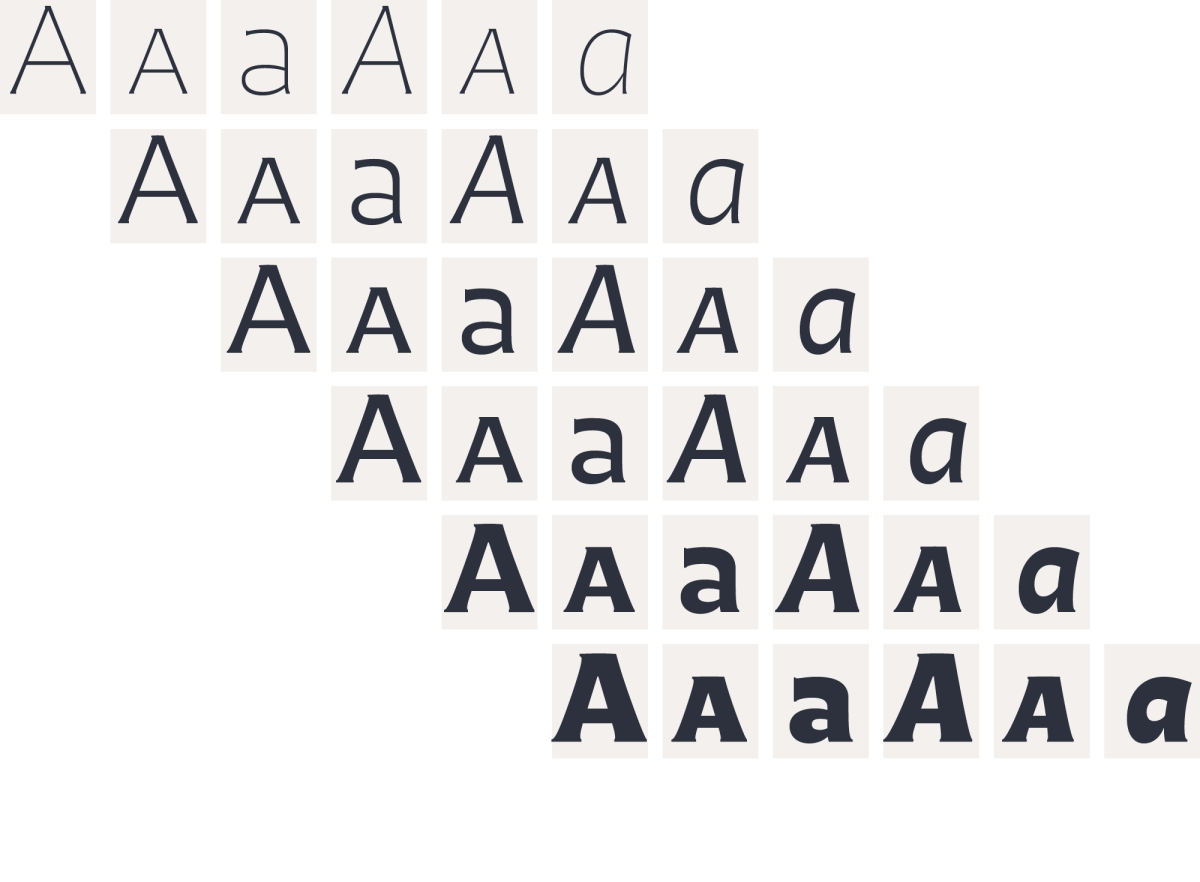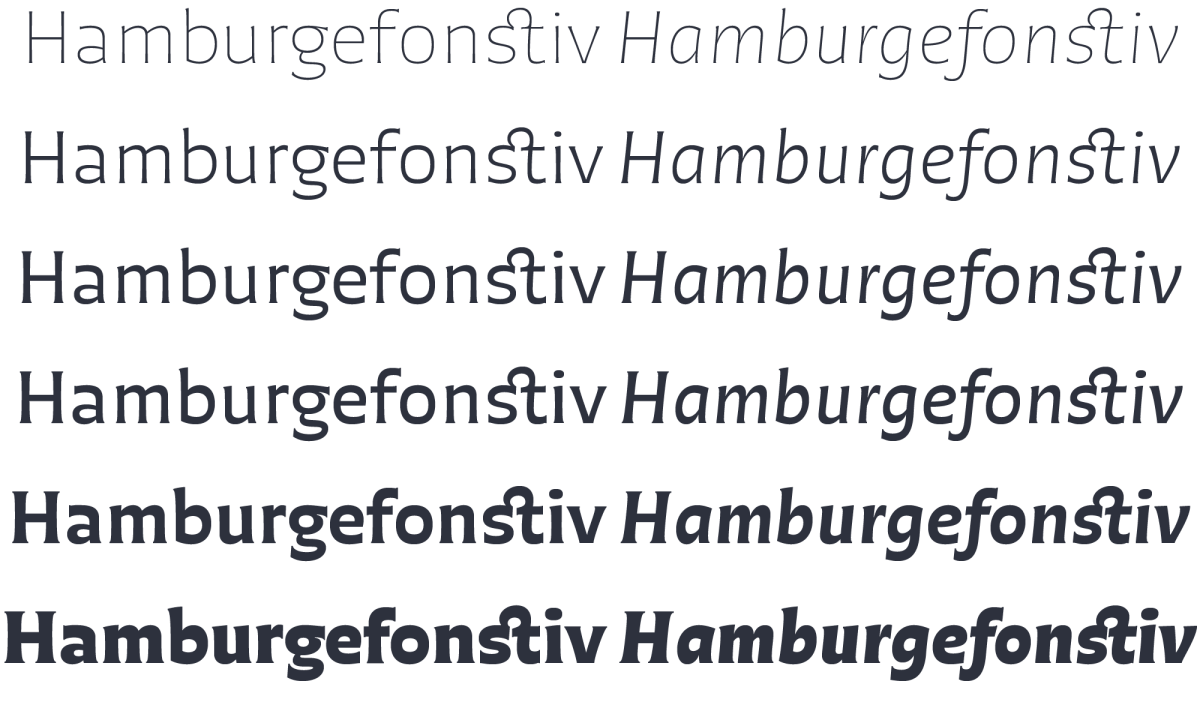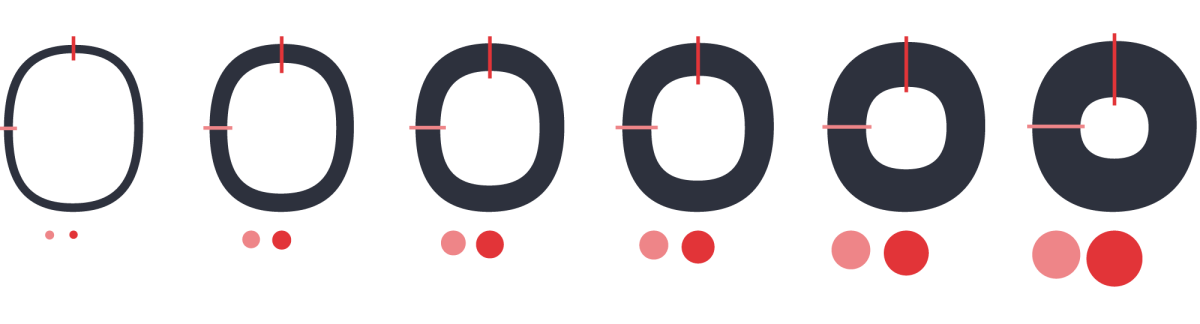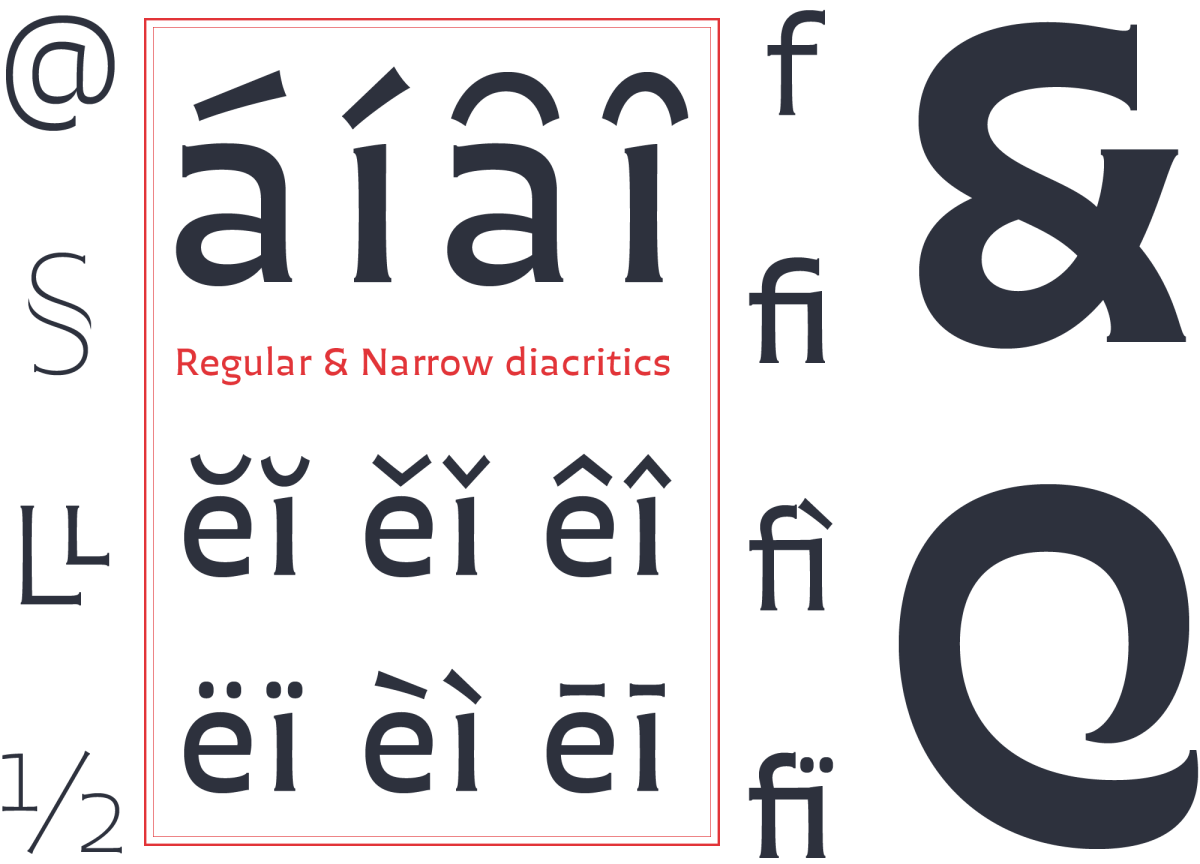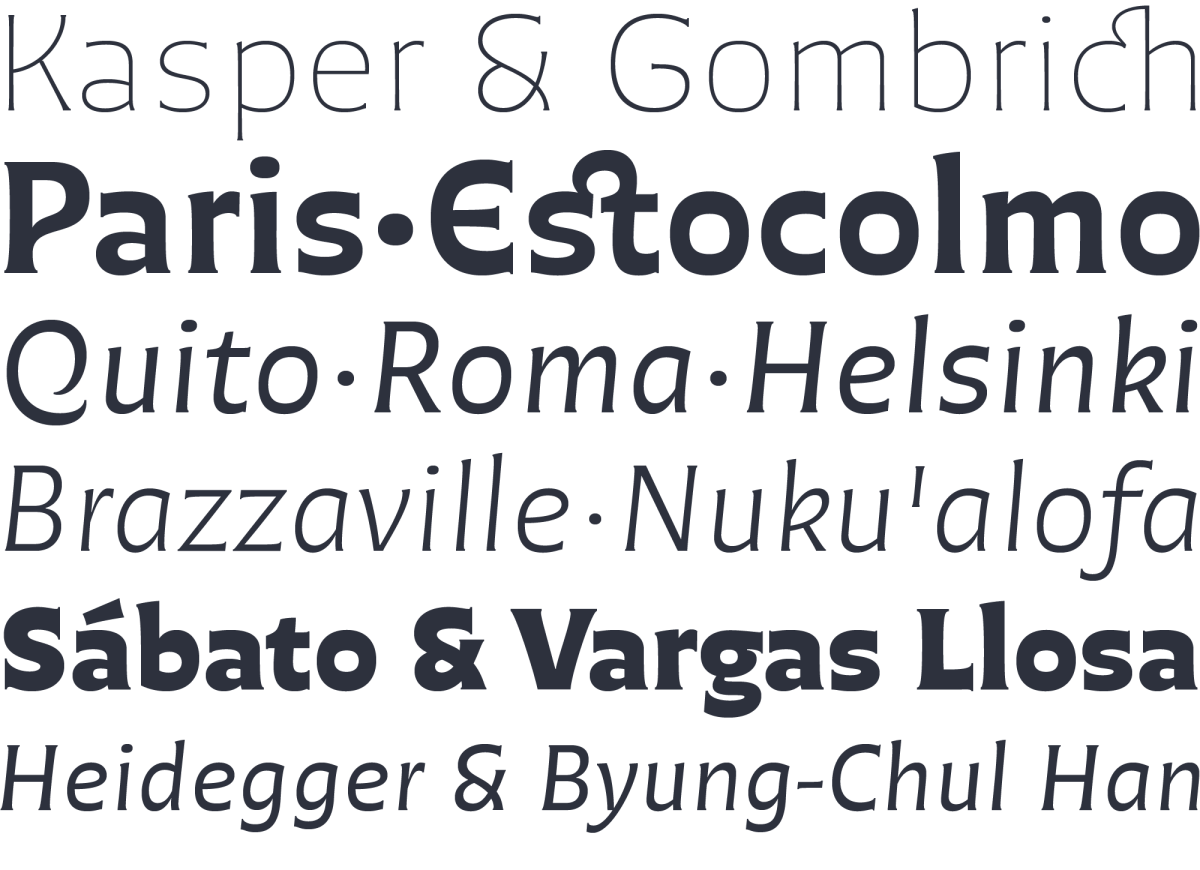
Chercán. Finely informal
Highly legible & charming?
Chercán is a spirited type created with a delicate sense of how readability doesn’t need to be dull. It wears a unique voice, the result of combining a sober sense of functionality with a charming soul. Its endurance and its open counters allow for a comfortable reading in small text.
Reverse contrast
Chercán has a slight inverted modulation of thick & thin strokes. This reverse contrast grows while weight increases. This is a key feature to friendliness and gives it a contemporary feel too. Other typefaces with reverse contrast are under preparation at PampaType.
Inspirations
Chercán occupies a unique place in the contemporary type design shelf, by exquisitely combining versatility, legibility, spiciness, and elegance. Its balanced rhythm is the result of a slow pairing of qualities found in old classics admired by Francisco Gálvez, such as Copperplate by Frederic Goudy, and Antique Olive by Roger Excoffon.
Refined & informal
Due to its legibility and the even grey it gains in long texts, Chercán is good for immersive reading. It is also ideal for texts that need an informal atmosphere without loosing authority.
OpenType fully equipped